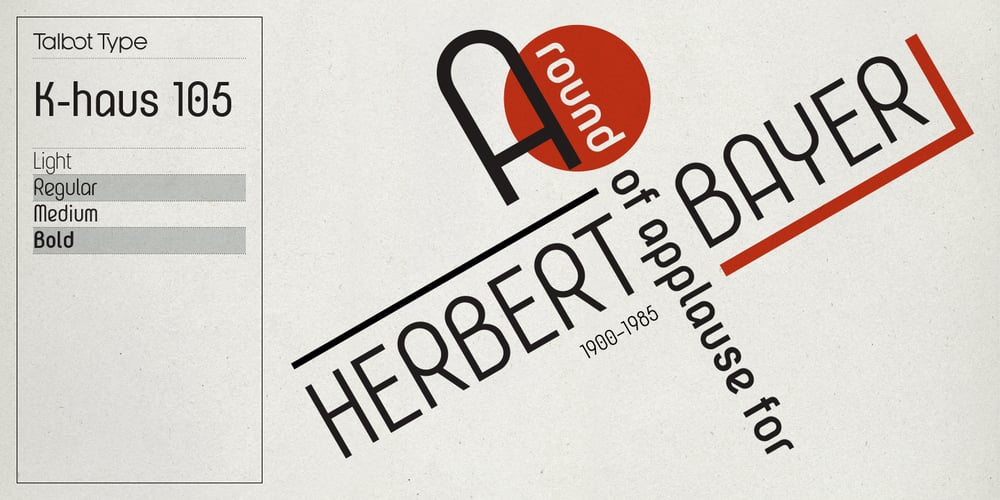
K haus 105 Font Family was designed by Adrian Talbot and published by Talbot Type. K haus 105 contains 8 styles and family package options. K-haus 105 is inspired by the work of graphic designer and typographer, Herbert Bayer, during his time at the Bauhaus around 100 years ago — work that kick-started graphic design as we know it, to this day. It owes something to the simple geometry of Bayer’s hand-drawn, ‘universal typeface’, updated and expanded to deliver a clean, balanced, geometric sans for today. Also available as K-haus 205, featuring a few, more ‘daring’ characters here and there, chiefly in the lower case set. Both variations include an extended character set, featuring accented characters for Central European languages.